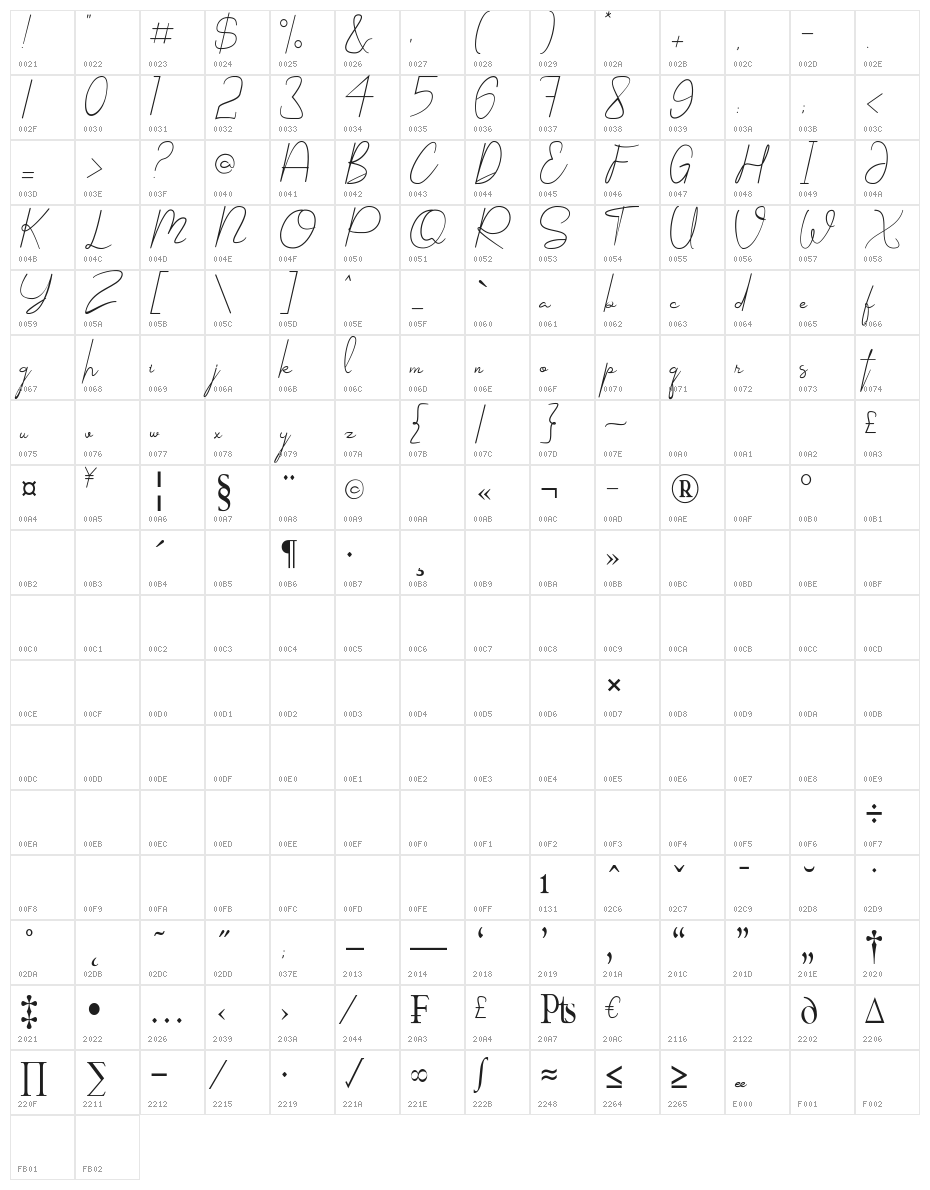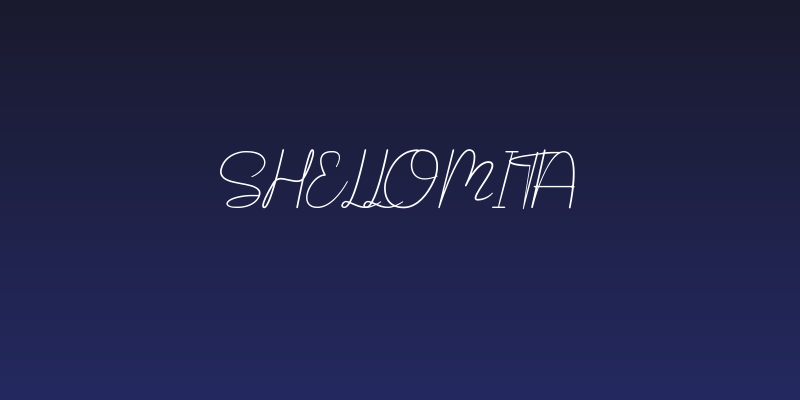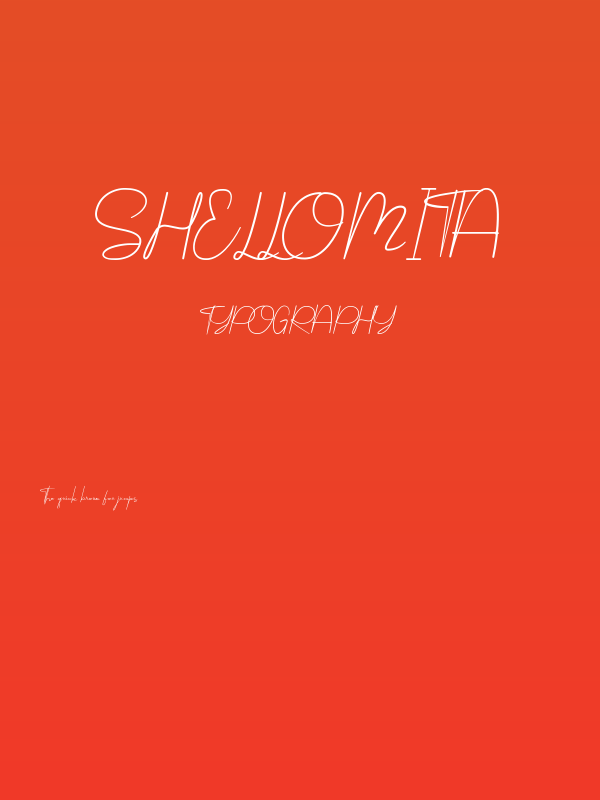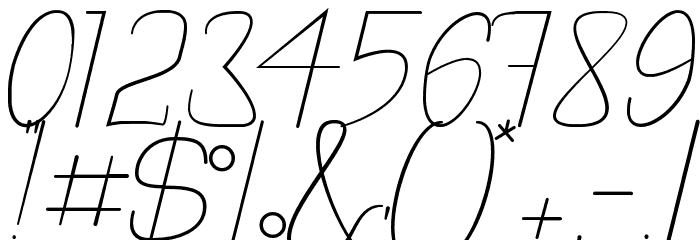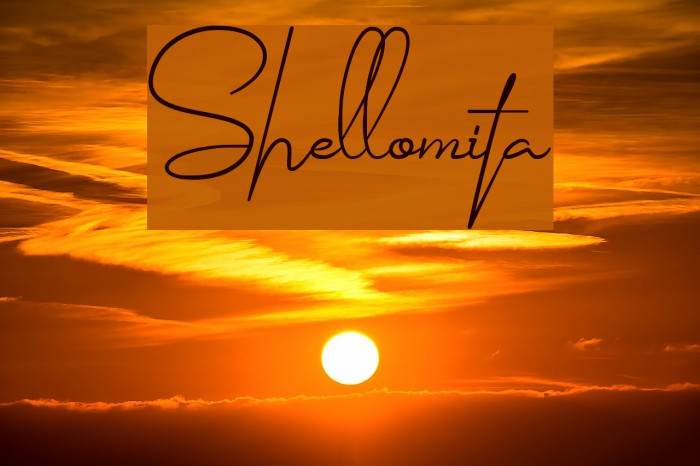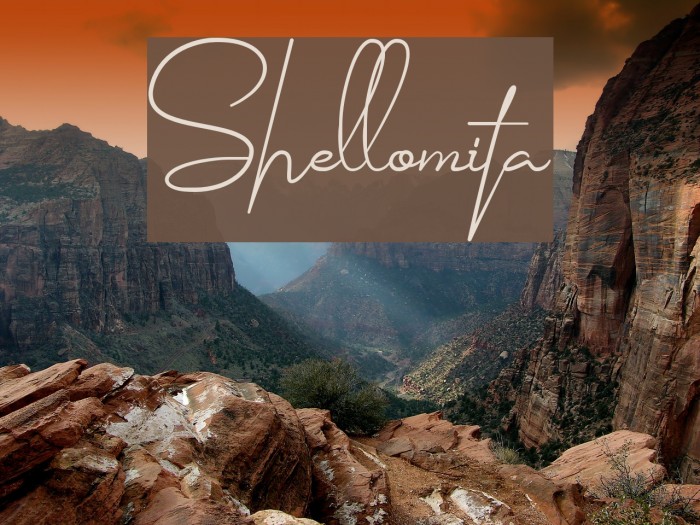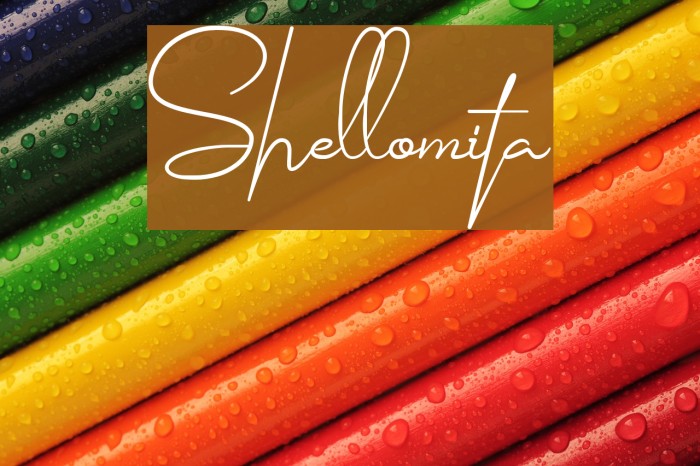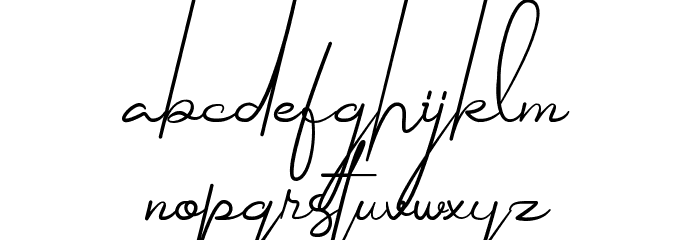
Shellomita Font
Shellomita Description
This font exudes a modern and elegant handwritten style, characterized by its fluid and continuous strokes. The uppercase letters are tall and slender, with a slight slant that adds a dynamic feel. The lowercase letters maintain a consistent flow, enhancing readability while preserving a personal touch. Numbers are distinct and clear, with a playful yet sophisticated appearance. Special characters are creatively integrated, maintaining the overall aesthetic. The font's thin lines and smooth curves make it suitable for projects that require a touch of elegance and sophistication.
| Use Case | Logos, Invitations, Personal Branding |
| Proposed Projects | Ideal for wedding invitations, personal branding, greeting cards, and elegant packaging designs. |